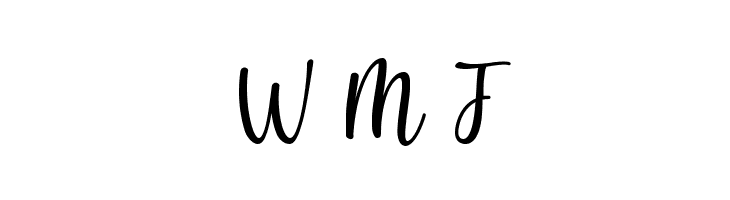
• HOLYSWEET schriftart
( Fonts by Densu Creative )
A playful, bold font with rounded, bubbly characters ideal for fun designs.
• Holywood schriftart
• Holzschnitt-Initialen schriftart
( Fonts by Paul Lloyd )
A decorative, woodcut-style font with intricate detailing and a vintage aesthetic.
• HolzSchnitte schriftart
Ornate woodcut-style font with pictorial glyphs.
• Homaa schriftart
( گالری فانت فارسی پژوهش آريانا - only compatible with Farsi and Arabic )
A bold, modern font with thick strokes and a slightly rounded appearance.
• Homade schriftart
( Fonts by PiPi Creative )
Playful handwritten script font.
• Homade McRacken schriftart
( 7NTypes - Situjuh Nazara - 7ntypes.com )
A playful, handwritten font with smooth, rounded edges and a casual flow.
• Homade McRacken Slant schriftart
( 7NTypes - Situjuh Nazara - 7ntypes.com )
A casual, handwritten font with a slight slant and smooth, rounded characters.
• Hombo schriftart
( Fonts by Devsign )
A decorative font with characters resembling a mosaic or cobblestone pattern.
• Home schriftart
A lively, flowing script font with elegant loops and cursive strokes.